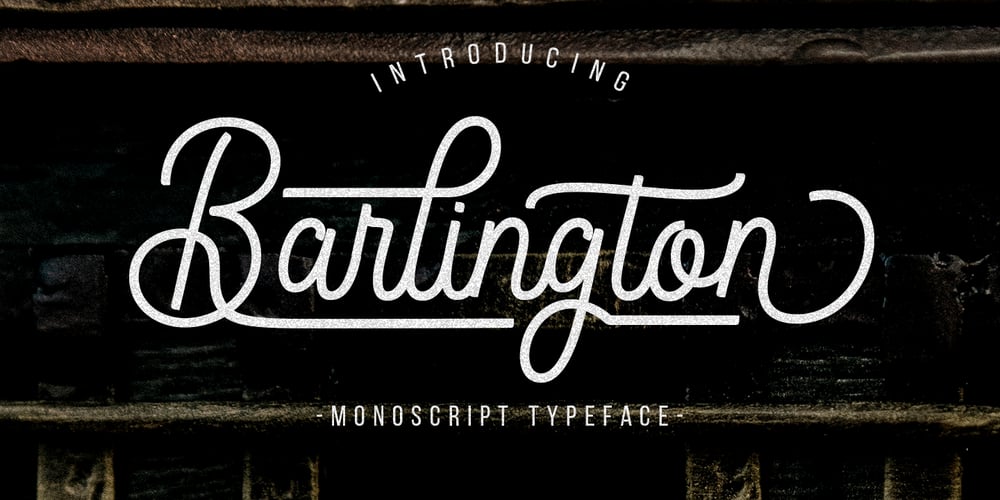
Barlington Font Family was designed by M Akmal and published by Mega Type. Barlington contains 1 styles and family package options. Barlington is a monoline script that is classic, vintage, and fun. This font can be used easily, even in mixing and matching with other fonts so that it can provide alternatives and new sensations for designers or craftsmen, in working on various projects. This font can be used for various purposes such as logos, wedding invitations, t-shirts, letterhead, signage, labels, news, posters, badges, and more.Barlington comes with uppercase letters, lowercase letters, numbers, punctuation, and so many variations on each character including OpenType alternatives, and multiple language support.If you have any question, don’t hesitate to contact me by email : megatype04@gmail.comThanks so much for looking and enjoy it!